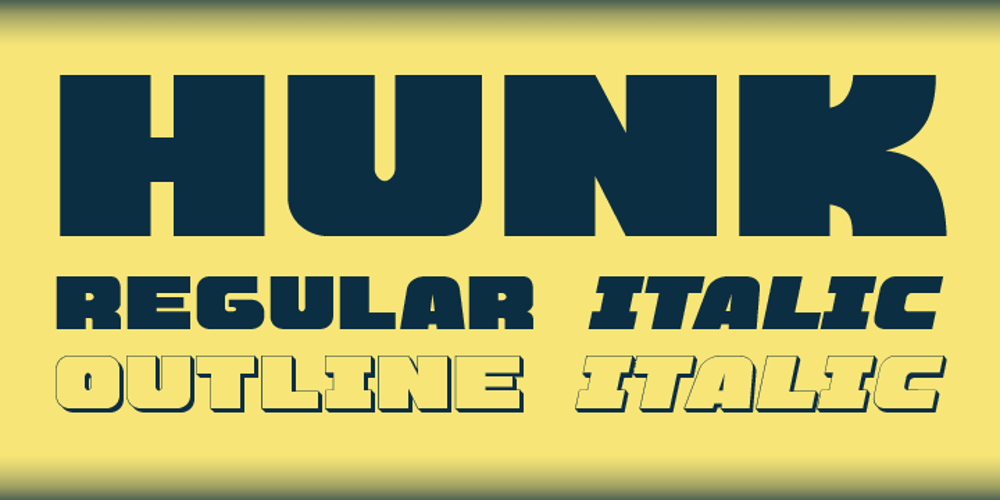
Hunk Font Family was designed by Alec Julien and published by Haiku Monkey. Hunk contains 4 styles and family package options. Hunk is an all-caps display font that thrives at big sizes. Use it liberally on your posters, headlines, and anything else that needs to speak loudly and proudly.